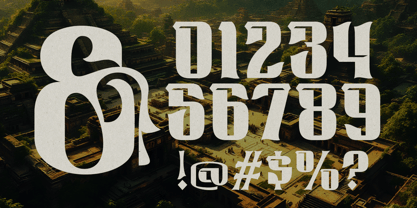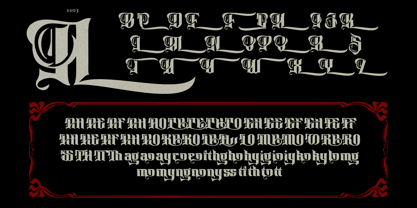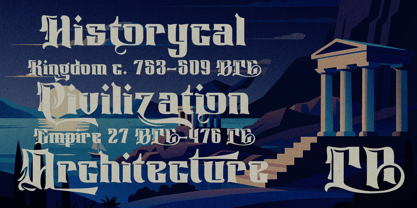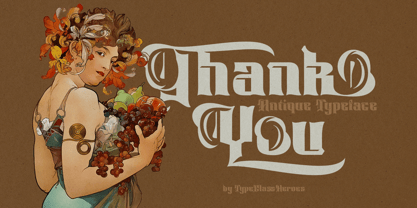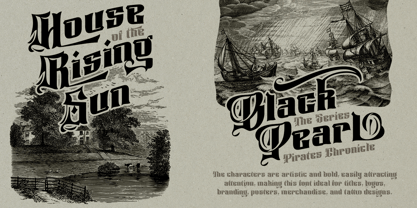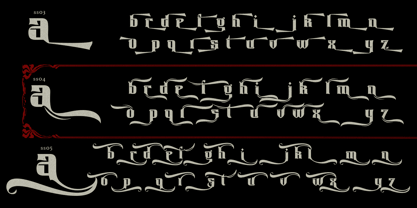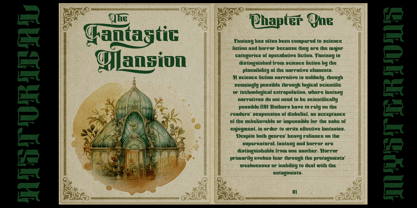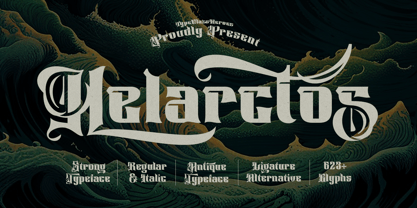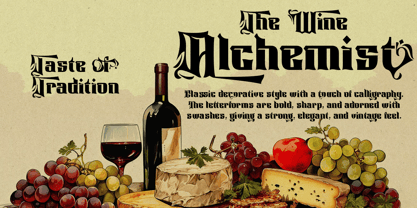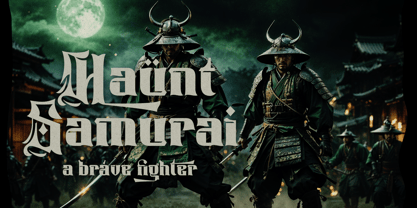
Helarctos
by TypeClassHeroes
The Helarctos Font Family was designed by Suandana ipandemade and published by TypeClassHeroes. Helarctos contains 2 styles and family package options. More about this family
Introducing Helarctos, this font features a classic antique style with a touch of Victorian typography era. The letterforms are bold, sharp, and adorned with swashes, giving a strong, elegant, and vintage feel. The characters are artistic and bold, easily attracting attention, making this font ideal for titles, logos, branding, posters, merchandise, and tattoo designs.